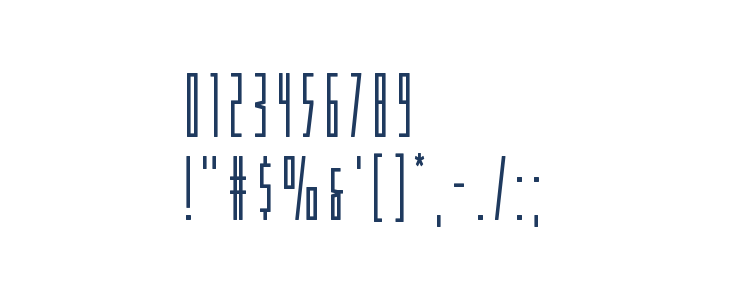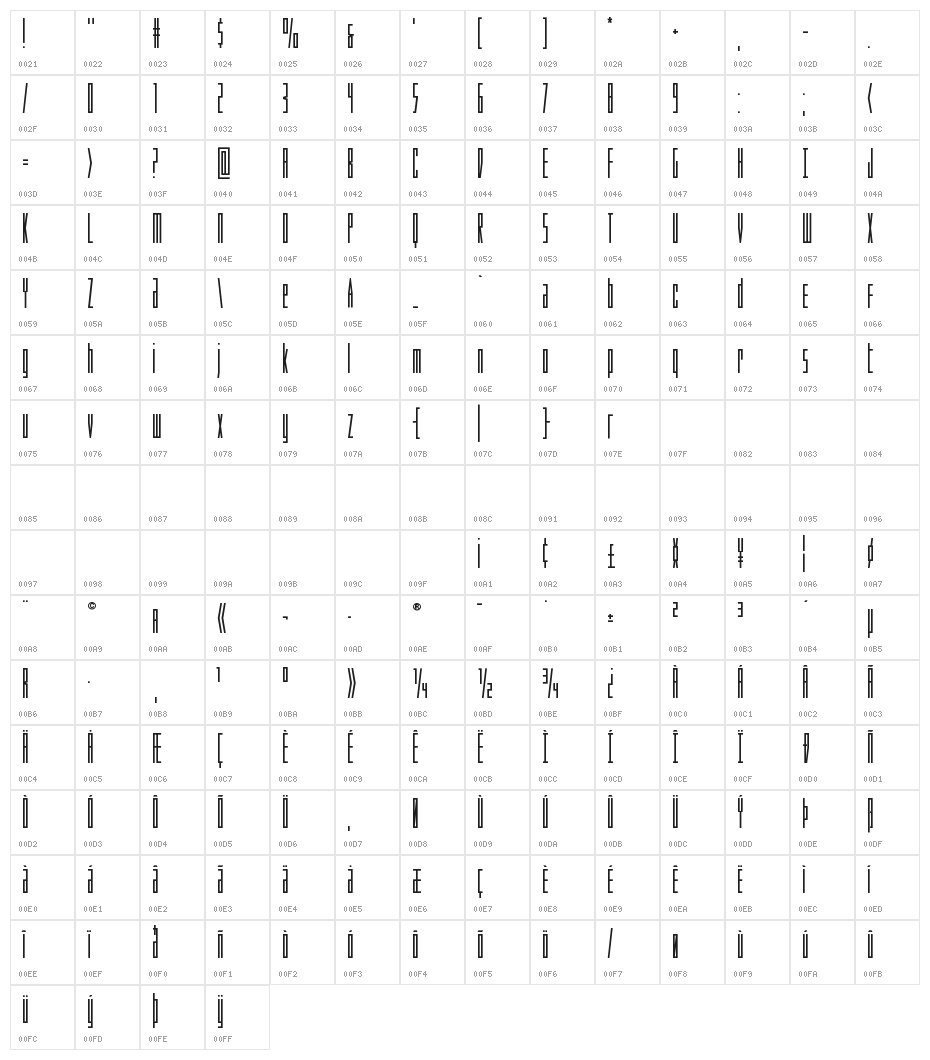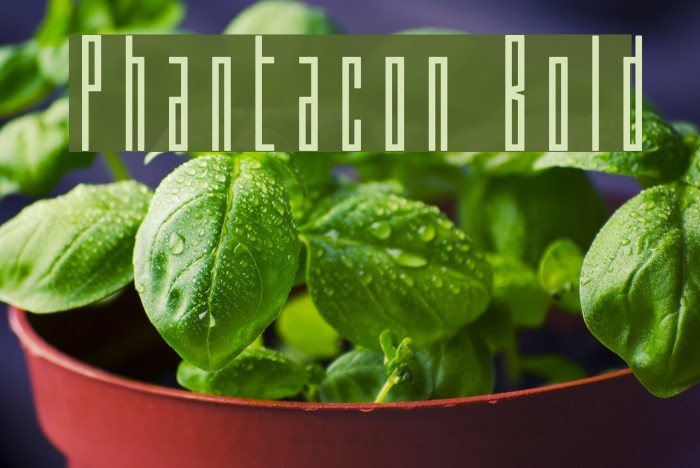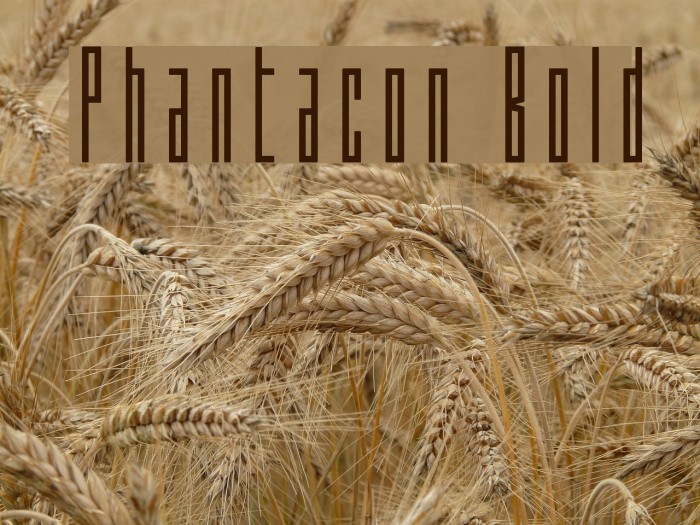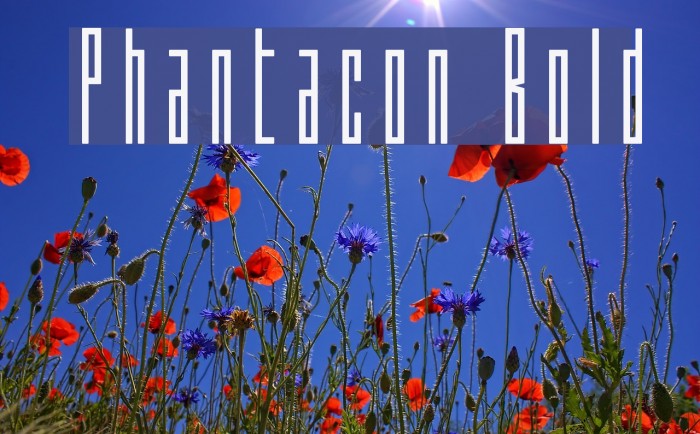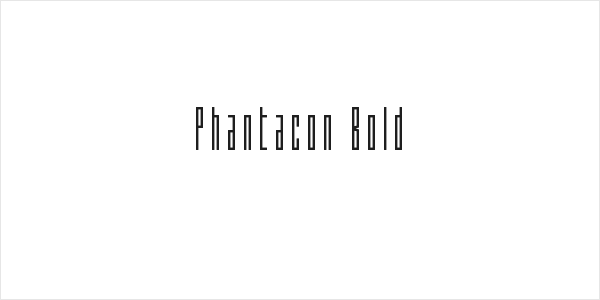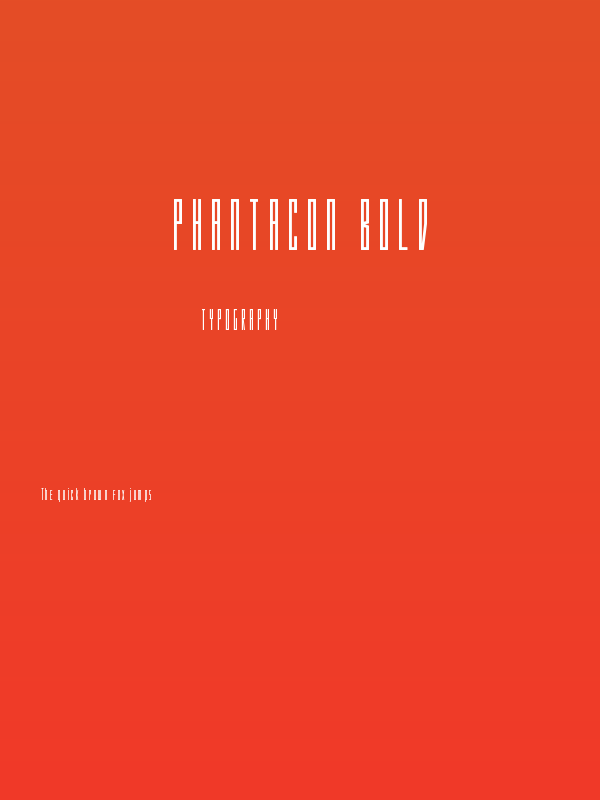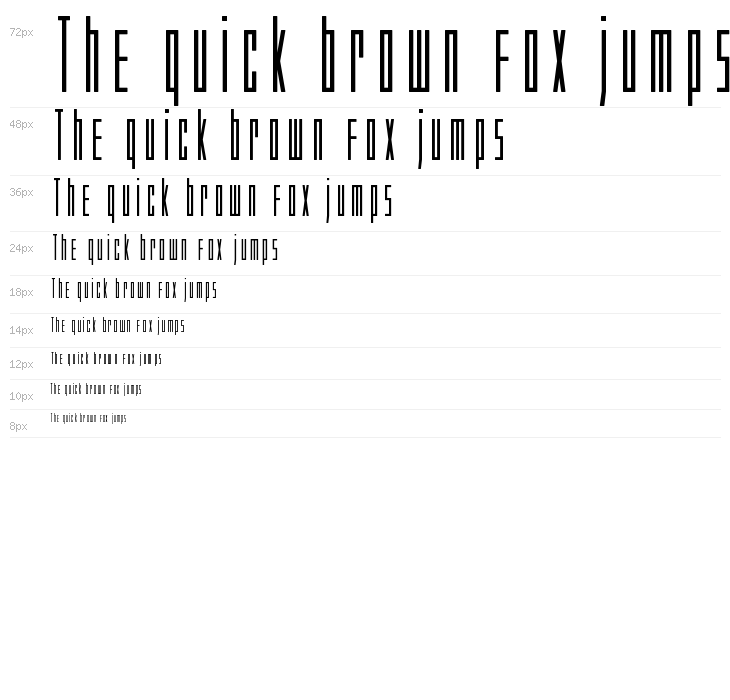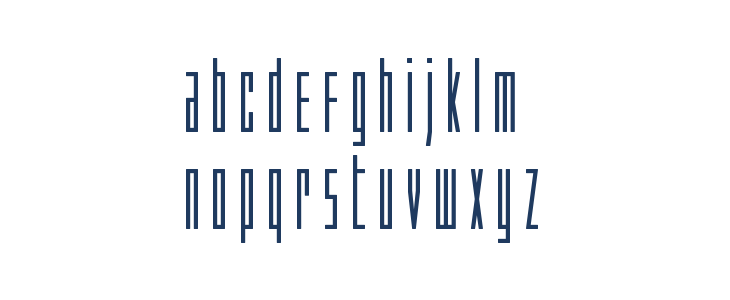
Phantacon Bold Font
Phantacon Bold Description
This font features a bold and striking design with tall, narrow characters that create a strong visual impact. The uppercase letters are particularly elongated, giving a sense of height and elegance. The lowercase letters maintain a consistent style with the uppercase, ensuring a cohesive look. The numerals are distinct and match the overall aesthetic, while the special characters are designed to complement the font's unique style. This font's geometric and modern appearance makes it suitable for projects that require a bold and contemporary look.
| Proposed Projects | Ideal for posters, headlines, branding, and any design requiring a bold statement. |